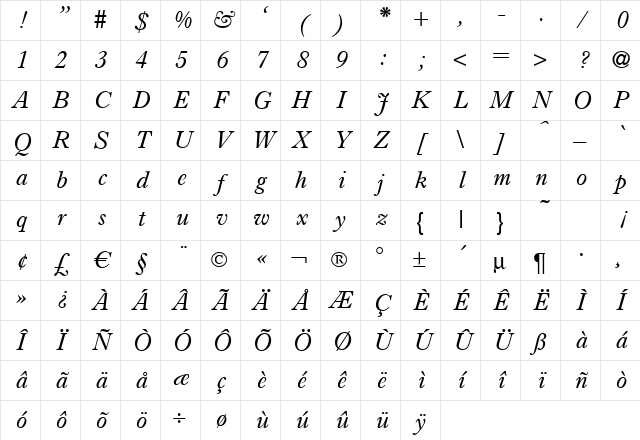
I771-Roman Italic
I771-Roman Family
I771-Roman Italic
Design Context for I771-Roman
I771-Roman is a composed and adaptable typeface that performs quietly and consistently across a wide range of design contexts. The slanted form adds forward momentum and visual energy.
Pro Tip: Use I771-Roman for emphasis, pull quotes, and subheadings where its slanted energy can add rhythm to the layout.